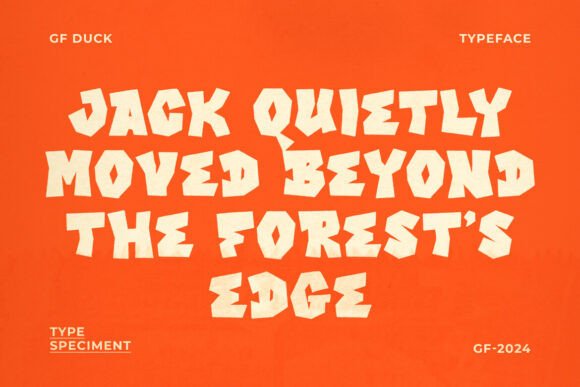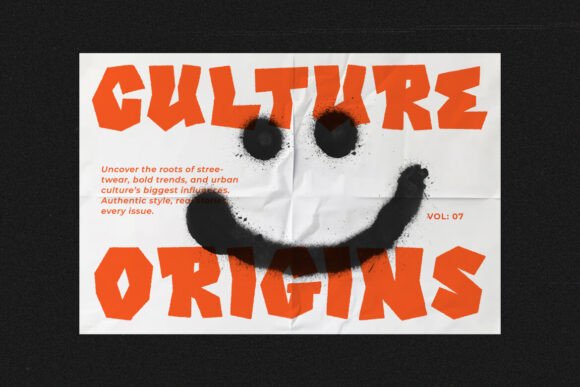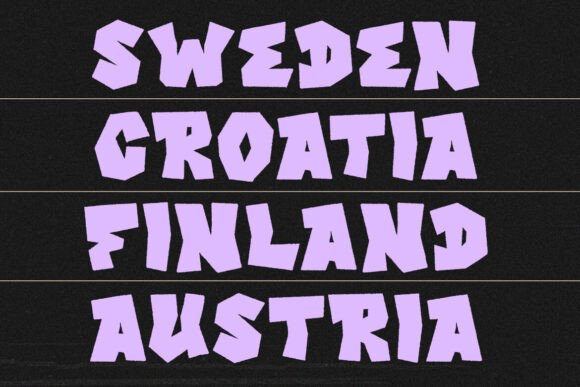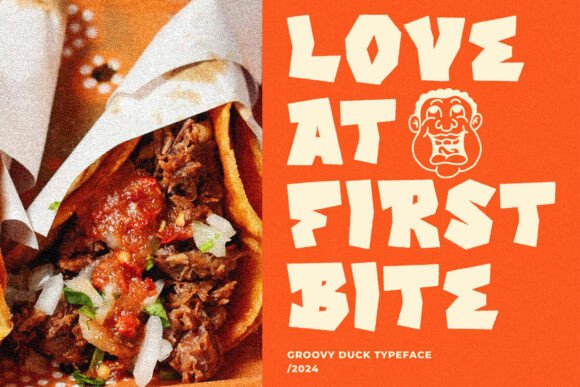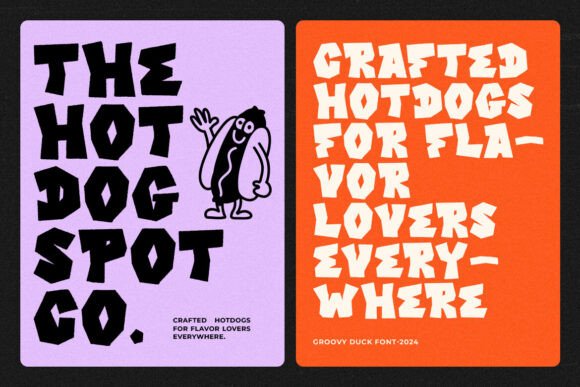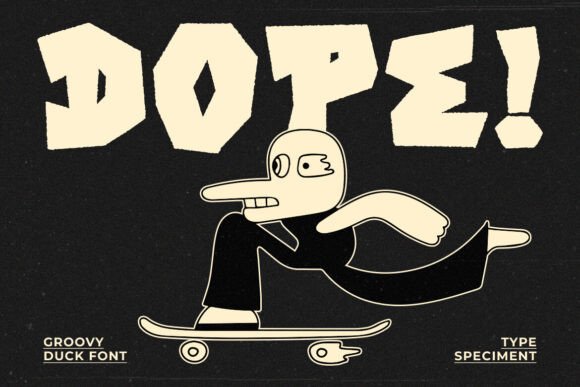
Introducing Groovy Duck Font: The Perfect Blend of Solidity and Approachability
In the world of typography, a well-crafted font can make all the difference in creating a lasting impression. For designers and crafters looking for a bold and substantial look without sacrificing character and warmth, Groovy Duck Font is an excellent choice. This carefully crafted display font achieves a thick, substantial appearance reminiscent of stone, while maintaining a sense of fluidity and flexibility.
The Design Philosophy Behind Groovy Duck
Groovy Duck’s design strikes a delicate balance between solidity and approachability, offering a unique visual appeal that is both sturdy and engaging. The font’s creators aimed to craft a typeface that exudes confidence and strength, while still being approachable and inviting. This balance makes Groovy Duck an ideal choice for creating impactful headlines, titles, and branding materials.
Key Features of Groovy Duck Font
• Thick and Substantial Appearance: Groovy Duck’s bold design gives it a sturdy appearance that commands attention.
• Fluidity and Flexibility: Despite its thick appearance, the font maintains a sense of fluidity and flexibility, making it perfect for a wide range of design applications.
• Balance of Solidity and Approachability: Groovy Duck’s unique design strikes a balance between being bold and approachable, making it perfect for creating engaging headlines and titles.
Use Cases for Groovy Duck Font
Groovy Duck Font is ideal for designers and crafters looking to create impactful visual materials. Here are some use cases where Groovy Duck shines:
• Headlines and Titles: Groovy Duck’s bold and substantial appearance makes it perfect for creating attention-grabbing headlines and titles.
• Branding Materials: The font’s unique blend of solidity and approachability makes it an excellent choice for creating branding materials that exude confidence and friendliness.
• Advertising and Marketing: Groovy Duck’s bold design makes it perfect for creating eye-catching advertisements and marketing materials that demand attention.
Why Choose Groovy Duck Font?
With so many fonts available, why choose Groovy Duck? Here are a few reasons why designers and crafters love Groovy Duck:
• Unique Visual Appeal: Groovy Duck’s blend of solidity and approachability makes it stand out from other fonts.
• Versatility: The font’s fluidity and flexibility make it perfect for a wide range of design applications.
• Impactful Design: Groovy Duck’s bold design makes it perfect for creating visual materials that demand attention.
Groovy Duck Font is a carefully crafted display font that offers a unique blend of solidity and approachability. Its thick, substantial appearance and fluidity make it perfect for creating impactful headlines, titles, and branding materials. Whether you’re a designer or crafter, Groovy Duck is an excellent choice for anyone looking to add a bold and substantial look to their visual materials. With its versatility and unique visual appeal, Groovy Duck is sure to become a favorite in your design toolkit.